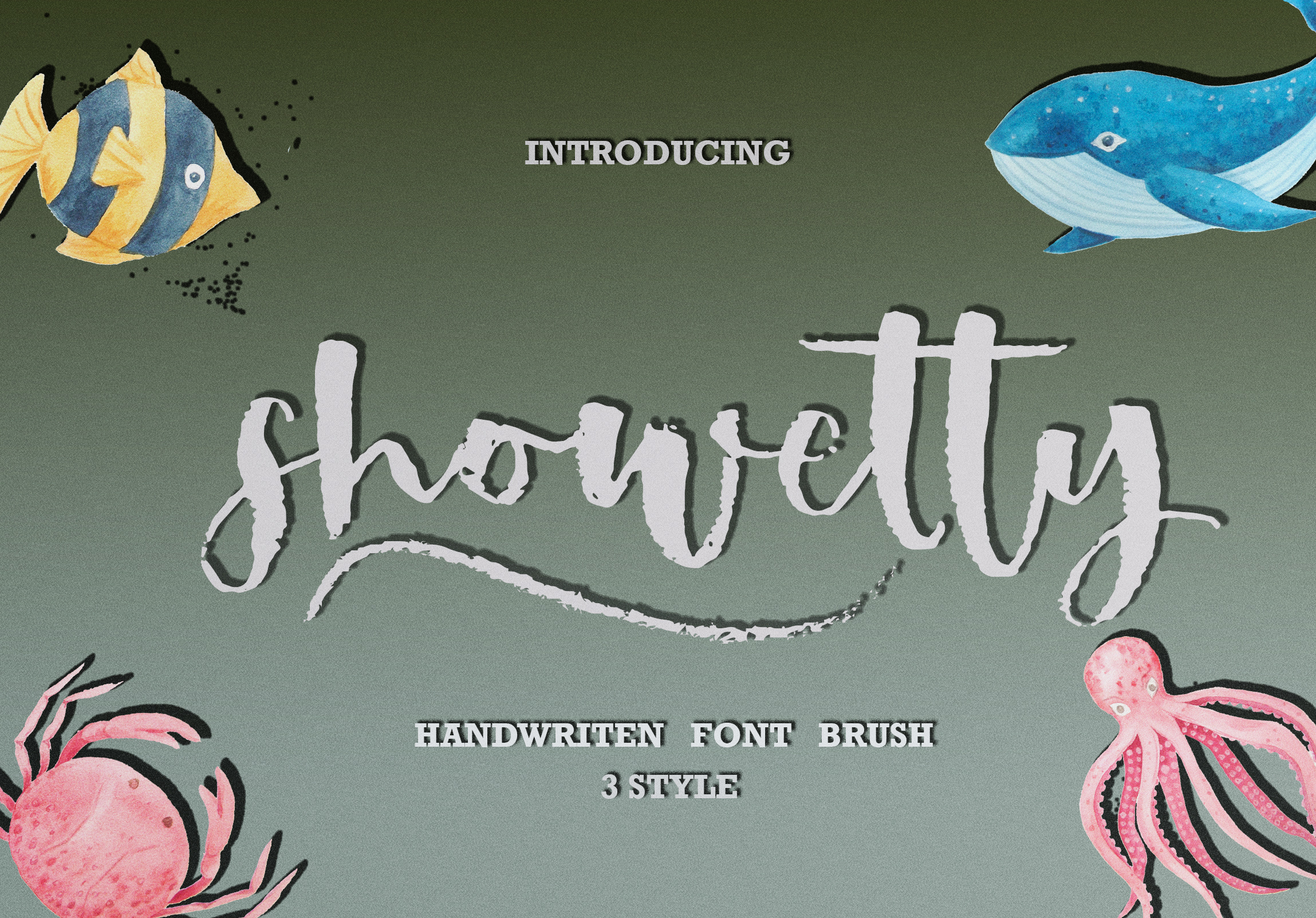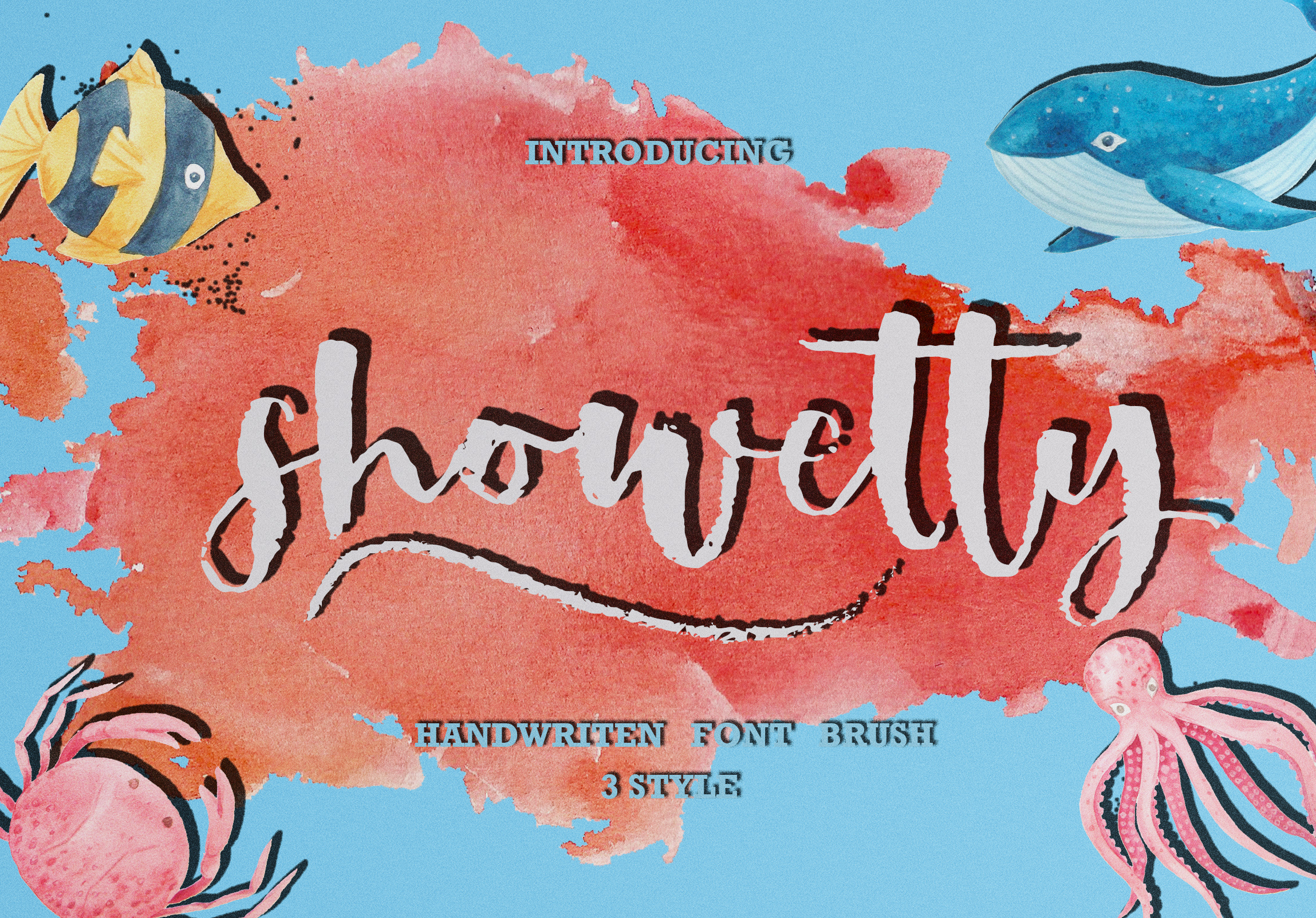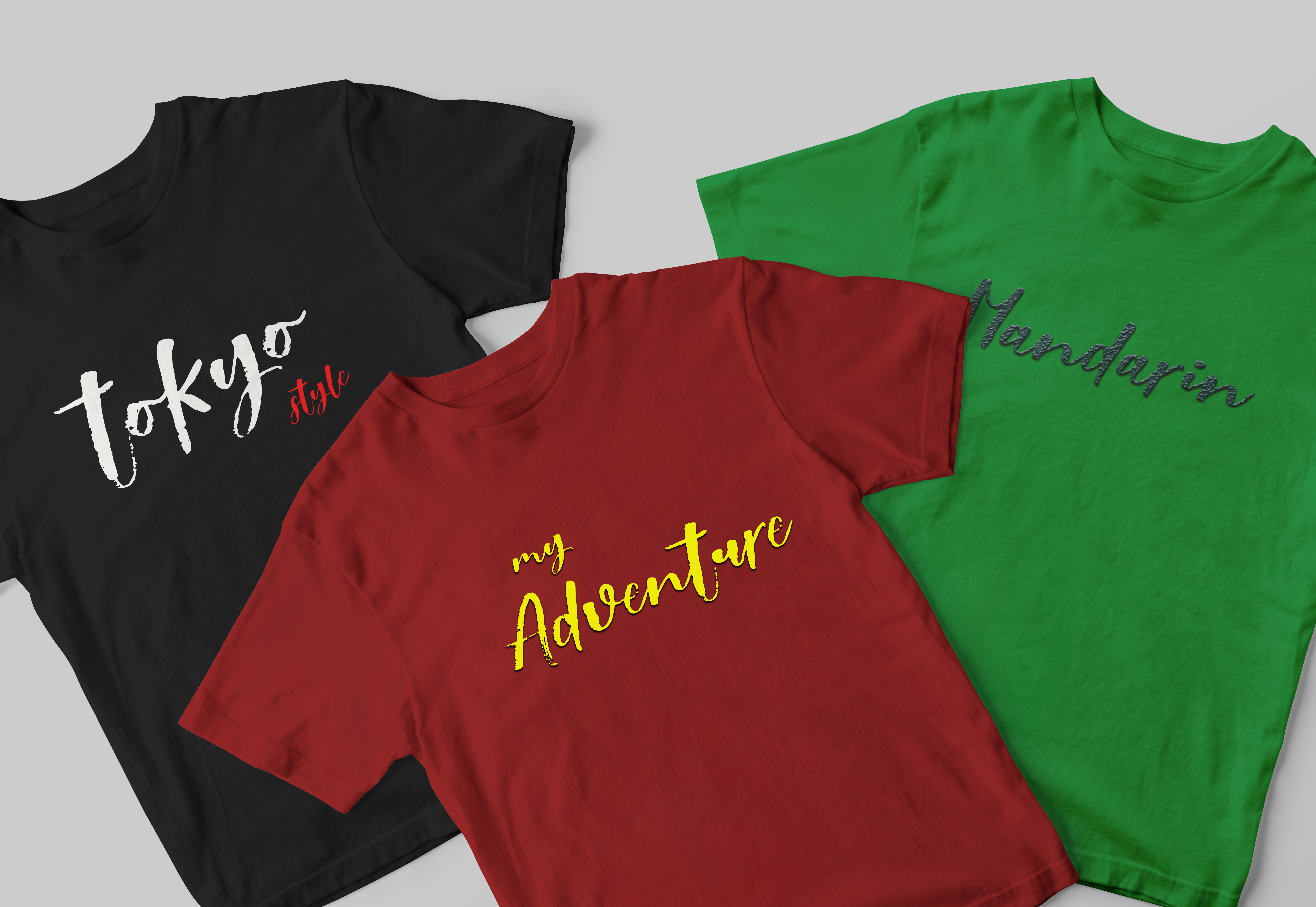
Showetty is a set of 2 hand made marker fonts.
They are designed to be combined and will allow you to add a hand-lettered touch to your designs in seconds .